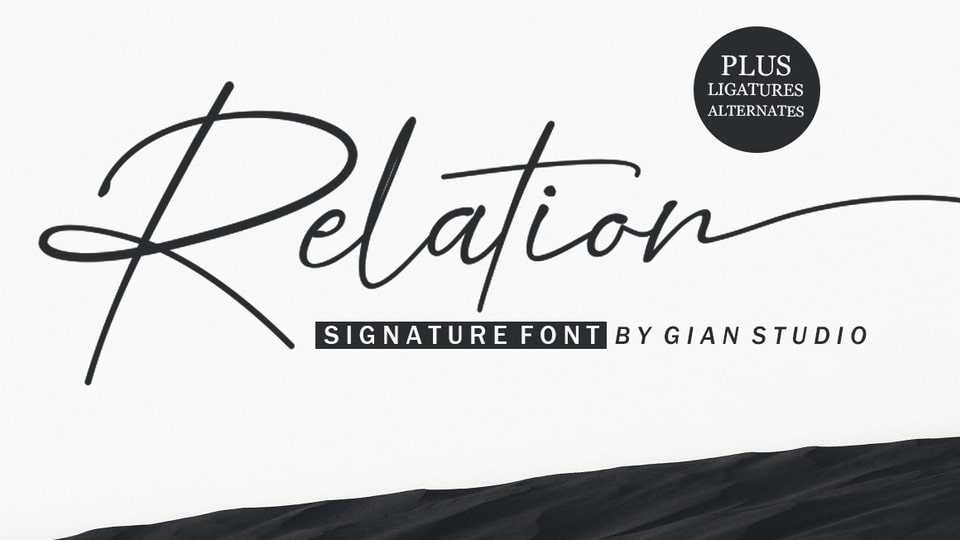
Download Relation font, a modern calligraphy typeface with a contemporary handwritten style, this font is perfect for branding, wedding invitations, magazines, mugs, business cards and so on.